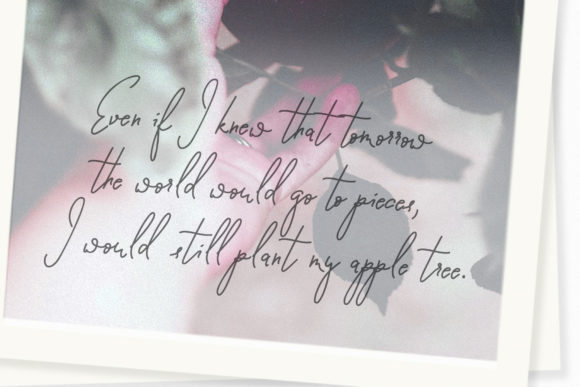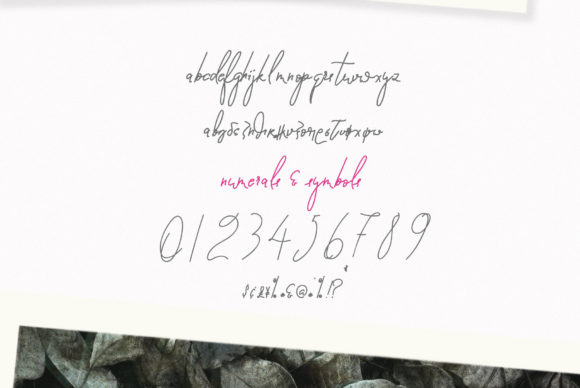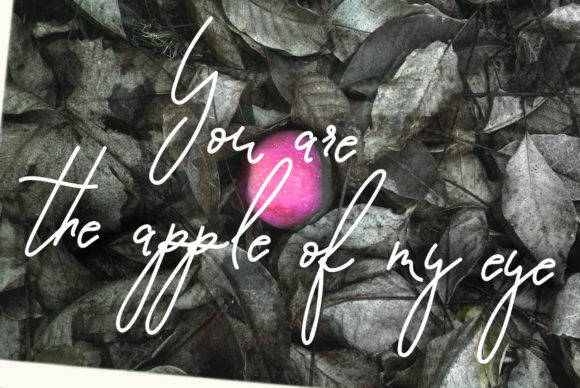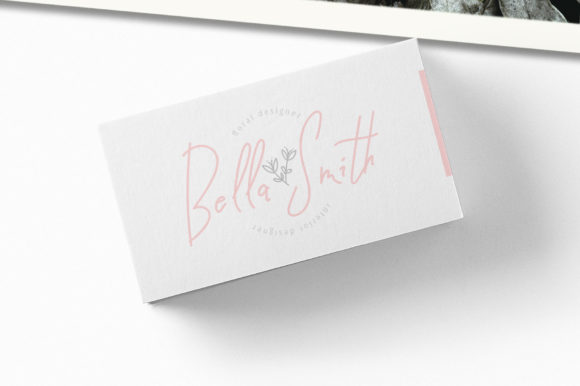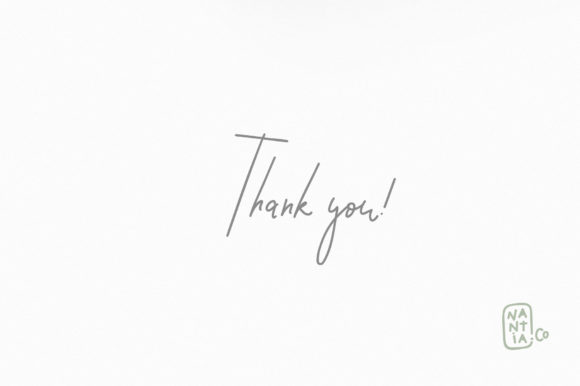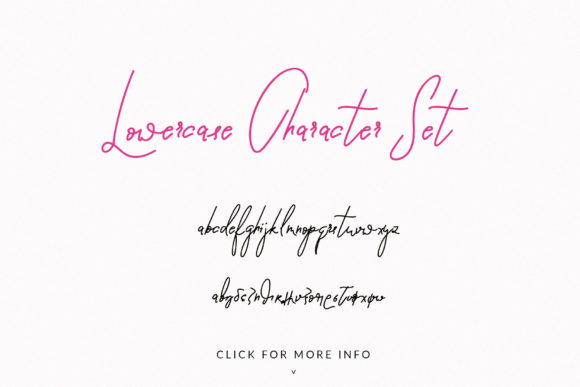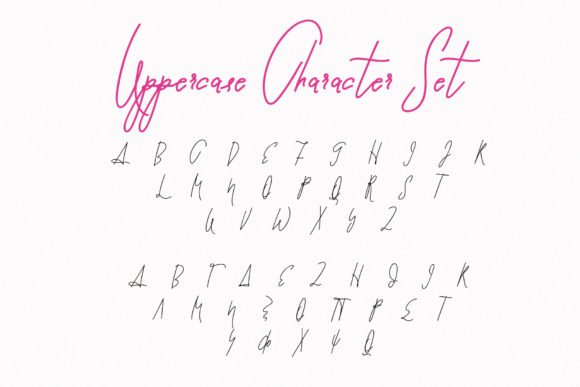
HomeScript FontsPomme Noir Font Script Fonts Pomme Noir Font FacebookXPinterestWhatsApp Pomme Noir Font Poster 2 Pomme Noir Font Poster 3 Pomme Noir Font Poster 4 Pomme Noir Font Poster 5 Pomme Noir Font Poster 6 Pomme Noir Font Poster 7 Pomme Noir Font Poster 8 About Pomme Noir Font Pomme Noir is a unique and light script font that’s ideal for adding a handcrafted look to any design project! DOWNLOAD ON CREATIVE FABRICAThis font is sold and delivered by Creative Fabrica. Font Canyon may earn a commission if you buy through this link. People also explored Pushed Font Hamillon Font Weatsyam Font Your Dream Font Palmera Calligra Marriage Font Snow Angle Font Noney Font Adabra Font 287 0 TagsPomme Noir Font Previous articleLolotte FontNext articleNadoco Font LEAVE A REPLY Cancel reply Comment: Please enter your comment! Name:* Please enter your name here Email:* You have entered an incorrect email address! Please enter your email address here Website: Save my name, email, and website in this browser for the next time I comment. Personal Use Free Rhetorical Personal Use Free Read more about this font Bigstone Personal Use Free Read more about this font True Love Personal Use Free Read more about this font Soulties Personal Use Free Read more about this font BLOG Best Fonts for YouTube Videos: Make Your Thumbnails Stand Out Best Fonts for YouTube Videos: Make Your Thumbnails Stand Out Choosing the right font can make a massive difference in how your YouTube videos perform.... Free vs Paid Fonts: Why Investing in Premium Fonts Is Worth It How to Cut Any Font on Cricut: Convert a Font to SVG (Free) Top 7 Google Fonts Alternatives for Faster and Privacy-Friendly Web Design (2025)